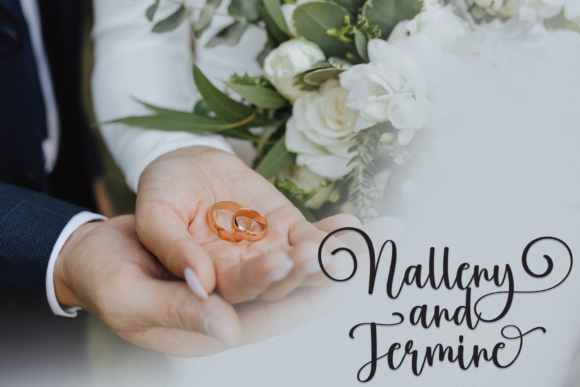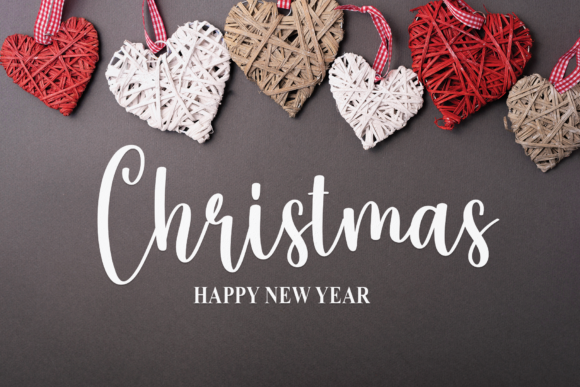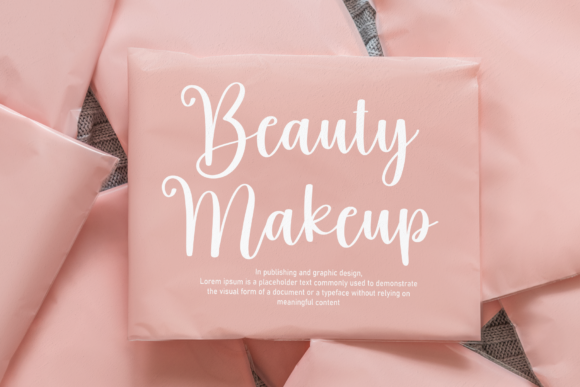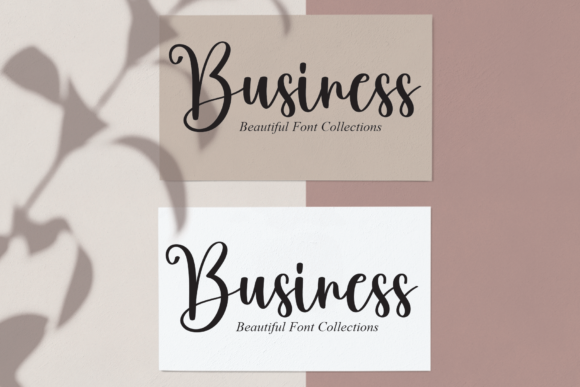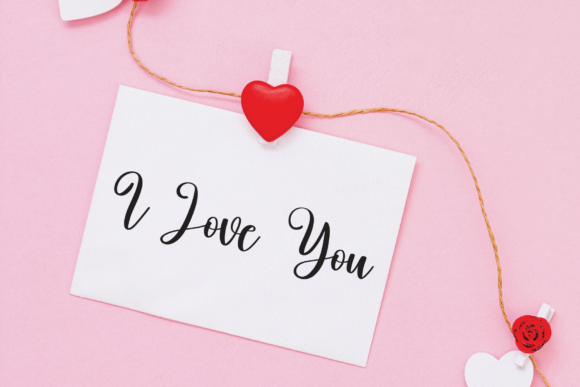
The Nativity Font
About The Nativity Font
The Nativity is a beautiful script font perfect for wall displays, wedding invitations, social media posts, logos, advertisements, product packaging, product designs, labels, photography, watermarks, invitations, stationery, and any project that requires a handwritten touch.